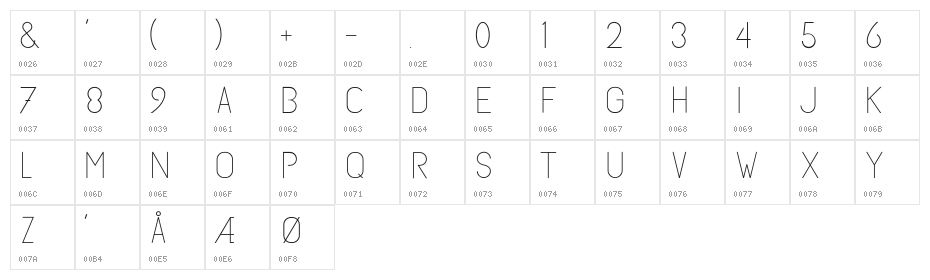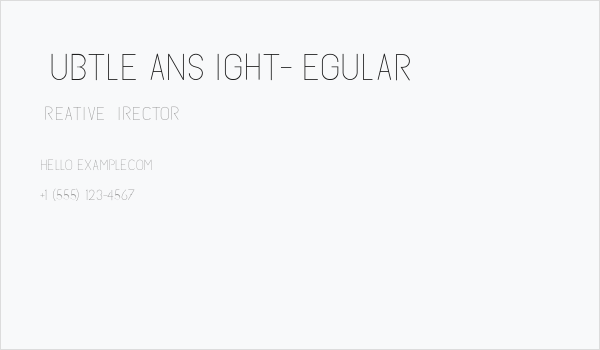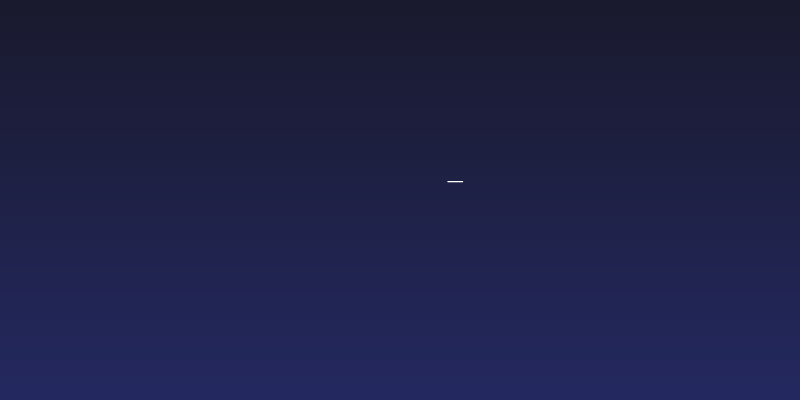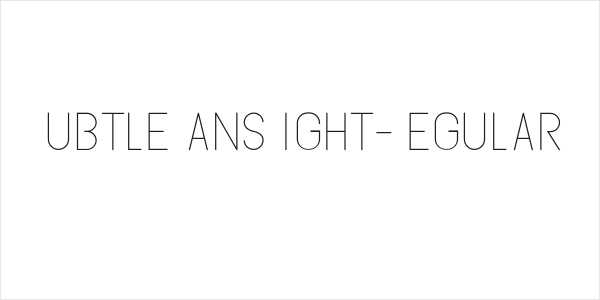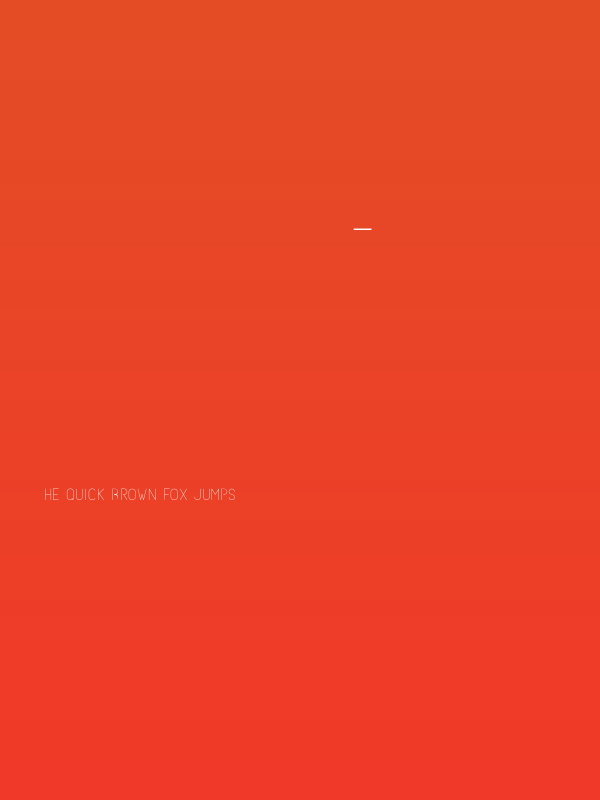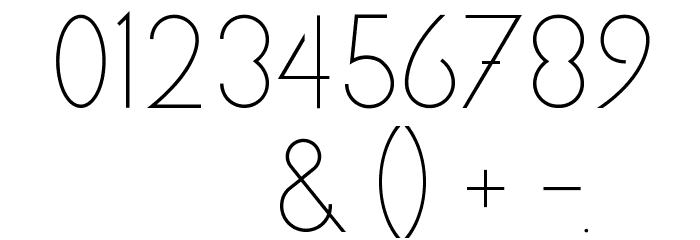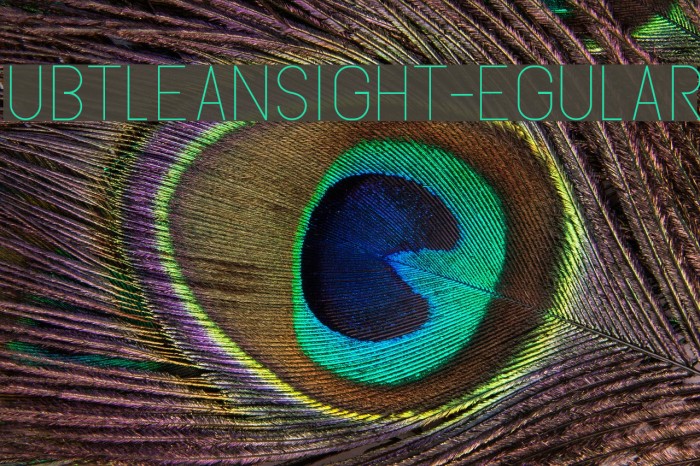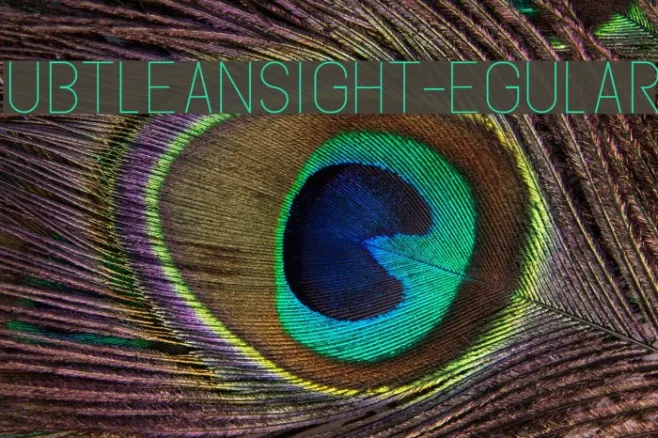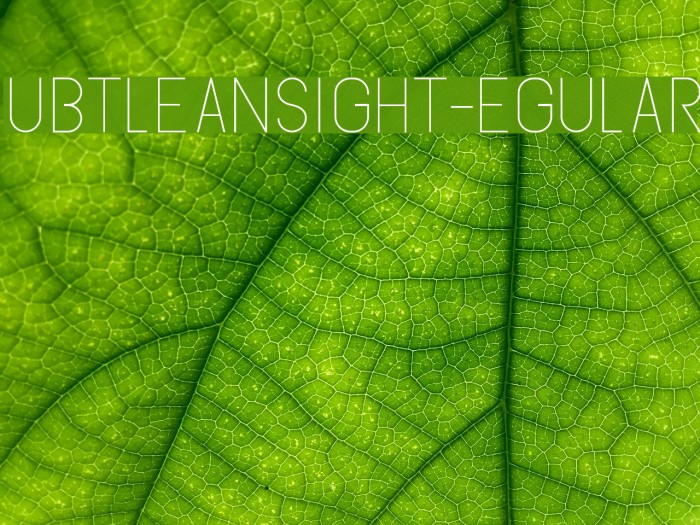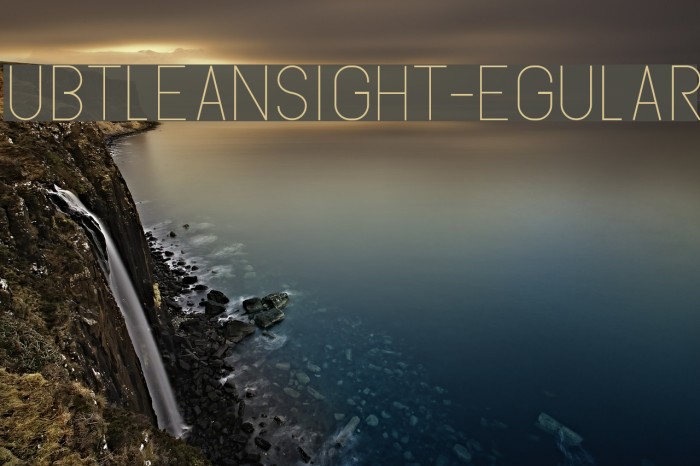
SubtleSansLight-Regular Font
SubtleSansLight-Regular Description
This font features a clean and minimalist design, characterized by its thin, uniform strokes and geometric shapes. The letters are evenly spaced, providing a sense of balance and clarity. Its simplicity and elegance make it suitable for modern design projects. The font maintains a consistent line weight throughout, contributing to its sleek and sophisticated appearance. The characters are well-defined, with a focus on readability and precision. This font is ideal for conveying a contemporary and professional look, making it versatile for various applications.
| Proposed Projects | Ideal for modern branding, digital interfaces, minimalist posters, and editorial design. |